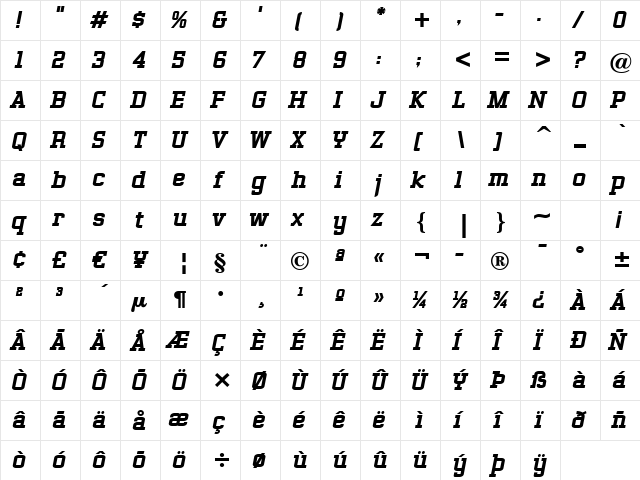
Gasoline Serif BTN BoldOblique
Gasoline Serif BTN brings classic typographic sensibility to the table — its serifs and measured letterforms reflect centuries of print heritage. The slanted form adds forward momentum and visual energy. The heavy weight commands attention and anchors typographic hierarchies.
Pro Tip: Set Gasoline Serif BTN with slightly loose tracking in headlines to let each letterform's detail read clearly at display sizes.